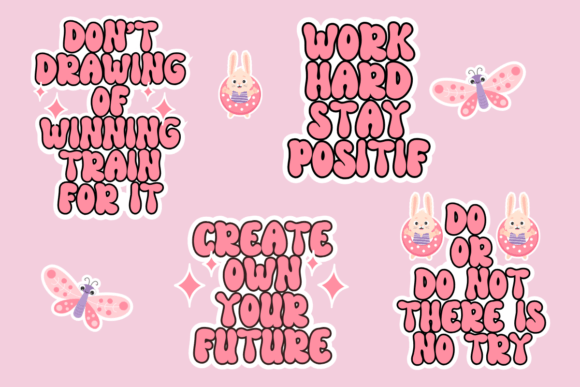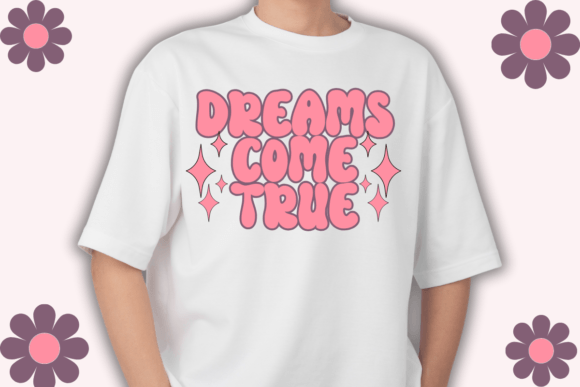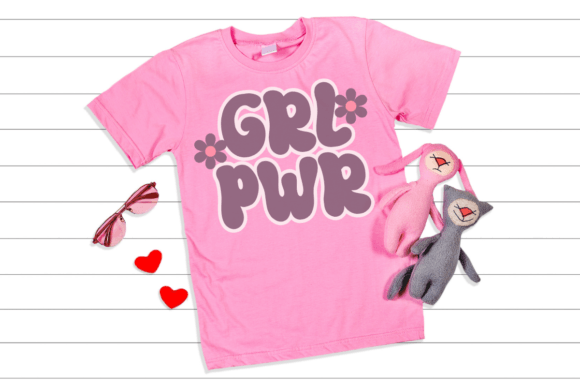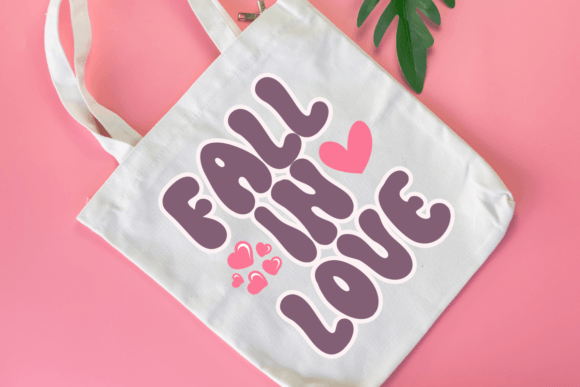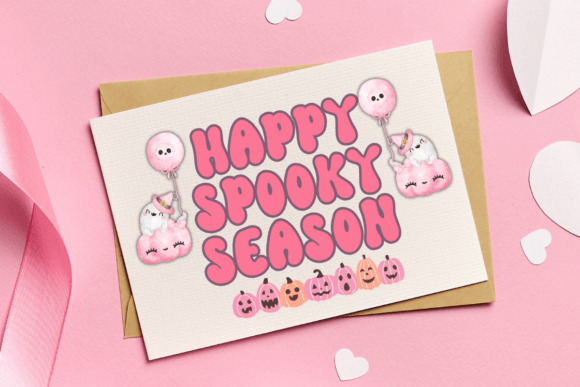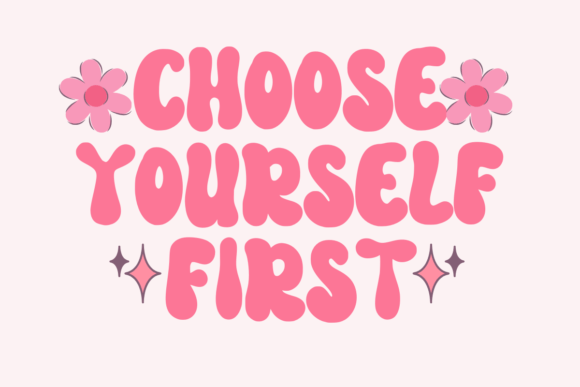
Introduction to Retro Crafs Font
Retro Crafs is a cute and colorful display font.
It embodies playfulness and authenticity and is the perfect choice for any children activity or school project Add this chunky lettered font to your designs and notice how it makes them come alive.
Key Features of Retro Crafs Font